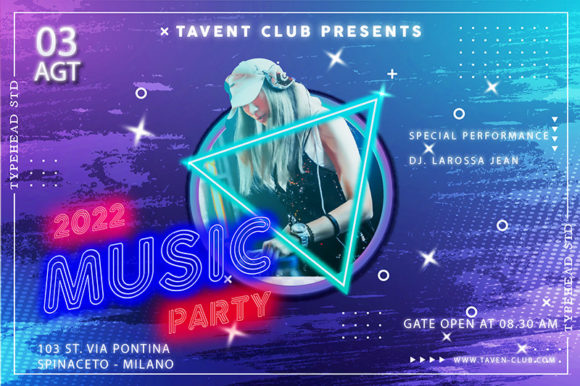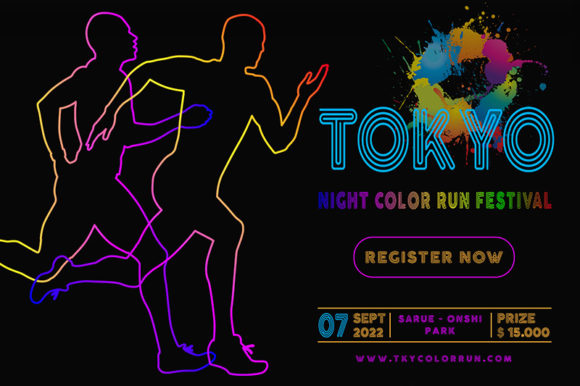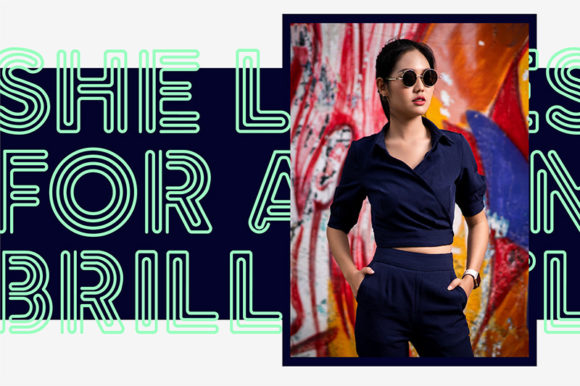
Introduction to Neon Quebec Font
Have you ever been stuck in the middle of a design project, desperately searching for that perfect font to bring your creative vision to life? You’ve scrolled through countless options, but nothing seems to capture the essence of your concept. That’s when the Neon Quebec Font comes to the rescue – a stunning display font that exudes the retro charm of the twentieth century, infused with a futuristic twist.
This captivating font is more than just a design resource; it’s a game-changer for designers seeking to elevate their creative projects. With its sleek, high-quality design, the Neon Quebec Font is perfect for any project that demands a touch of elegance and sophistication. Whether you’re working on a futuristic logo, a neon-lit poster, or a sleek website, this font is sure to impress.
Key Features of Neon Quebec Font
- Unique, high-contrast design ideal for creative projects that require a bold, eye-catching visual statement.
- Perfect for adding a touch of retro-futurism and neon flair to your design, with a distinctive aesthetic that’s sure to stand out.
Honest Review: Neon Quebec Font
I recently came across the Neon Quebec Font, and I must say it’s been a game-changer for my design projects. This high-quality font has been a valuable addition to my design resource library, and I’m excited to share my thoughts with you.
- Unique and stylish design aesthetic that adds a touch of modernity to any creative project.
- May not be suitable for formal or professional designs, as it has a bold and eye-catching style.
- Not as versatile as other fonts, as it’s primarily designed for display purposes.
Overall, I’m thoroughly impressed with the Neon Quebec Font. Its unique style and high-quality design make it an excellent choice for designers looking to add a touch of modernity to their creative projects. While it may have some limitations, I believe it’s a valuable addition to any design resource library.
The Neon Quebec Font is a unique, high-quality design resource ideal for creative projects that require a touch of modernity and sophistication. With its transparent background, this font is perfect for overlaying text on images or backgrounds.